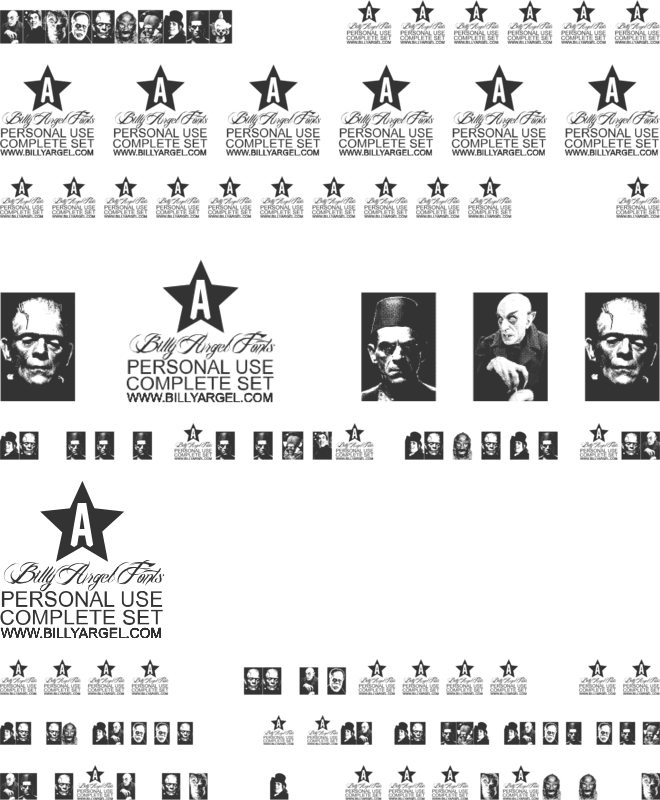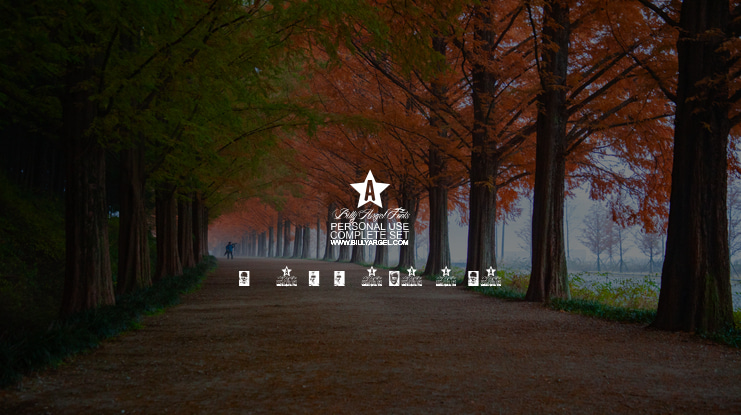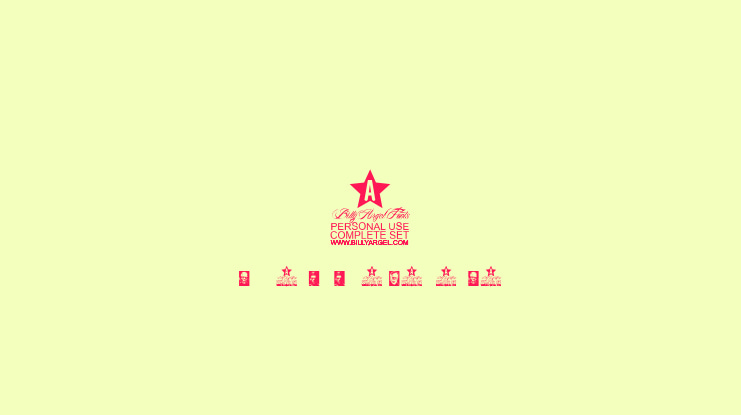
TIMEMACHINE HALLOWEEN CLASSICS Font Family
Billy Argel
Two font files, one of them with 10 classic pictures of horror monsters in lowercase letters, a b c d e f g h i j